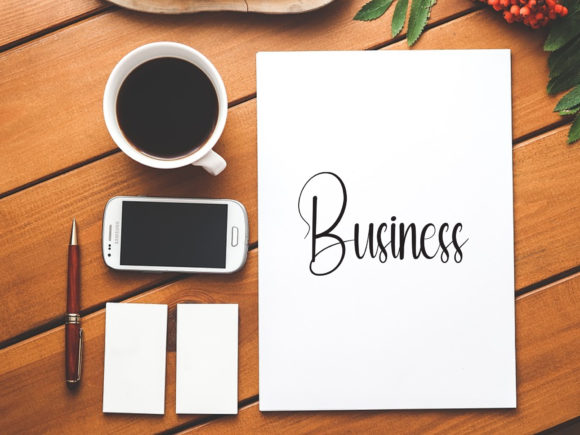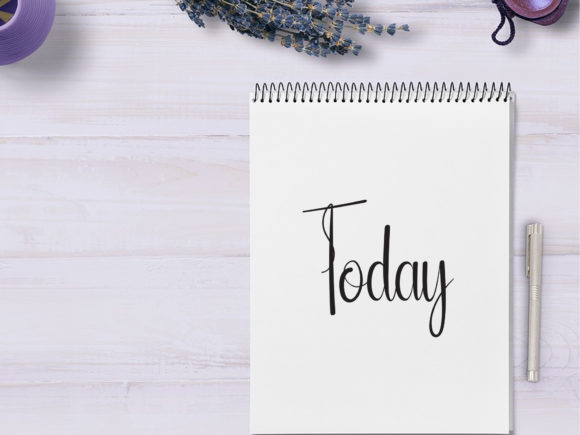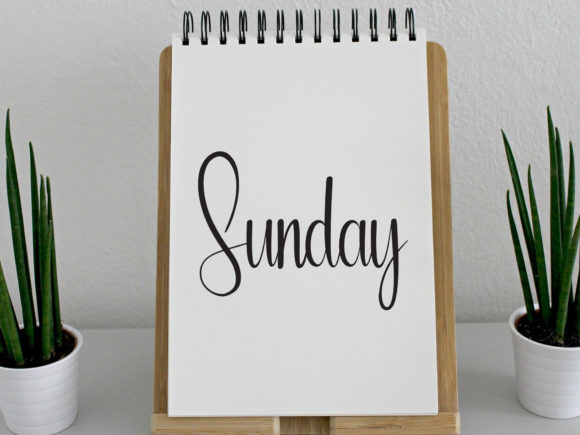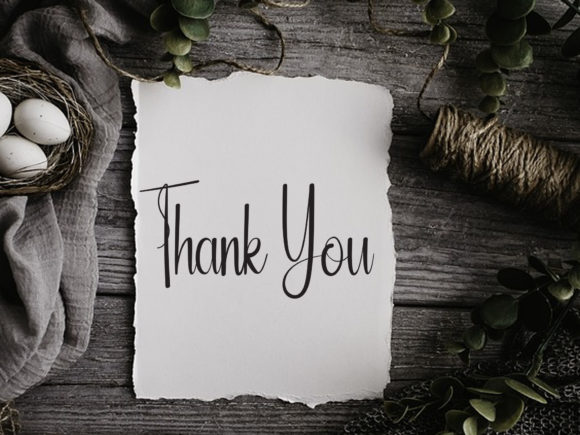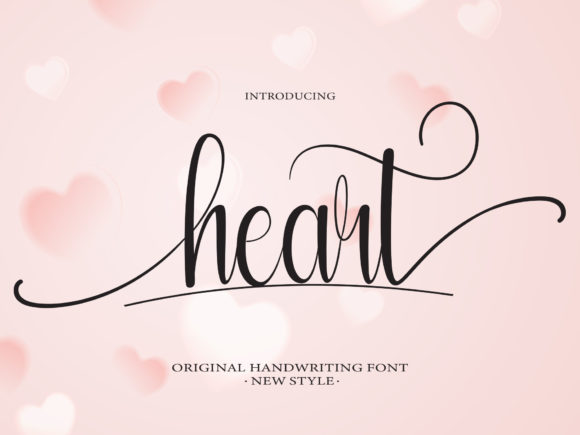
Heart Font: The Sweetest Handwritten Font for Your Creative Projects
Are you a designer, crafter, or DIY enthusiast looking for a font that can add a touch of warmth and personality to your projects? Look no further than Heart Font, a sweet handwritten font that is made with great care to exceed your expectations. In this article, we’ll explore the features and benefits of Heart Font, and show you can use it to create beautiful and engaging designs.
What is Heart Font?
Heart Font is a handwritten font that is designed to be both elegant and approachable. It features a unique and charming style that is perfect for a wide range of creative projects, from handmade crafts to digital designs. The font is carefully crafted to ensure that each letter is beautifully formed and proportioned, making it easy to read and visually appealing.
Key Features of Heart Font
- Handwritten style: Heart Font has a lovely handwritten style that adds a personal touch to your designs.
- Unique character set: The font features a unique character set that includes uppercase and lowercase letters, numbers, and punctuation marks.
- Easy to read: The font is carefully designed to be easy to read, making it perfect for body text and headings.
- Versatile: Heart Font can be used for a wide range of creative projects, from crafts to digital designs.
Benefits of Using Heart Font
So why should you choose Heart Font for your creative projects? Here are just a few benefits of using this lovely font:
- Adds a personal touch: Heart Font’s handwritten style adds a personal touch to your designs, making them more relatable and engaging.
- High-quality design: Heart Font is carefully designed to ensure that it is of high quality and visually appealing.
- Flexible: The font can be used for a wide range of creative projects, from handmade crafts to digital designs.
Creative Projects with Heart Font
Heart Font is perfect for a wide range of creative projects, including:
- Handmade crafts: Use Heart Font to add a personal touch to your handmade crafts, such as cards, gift tags, and scrapbook pages.
- Digital designs: Use Heart Font to create beautiful digital designs, such as social media graphics, blog posts, and email newsletters.
- Stationery: Use Heart Font to create lovely stationery, such as journals, planners, and notecards.
- Signs and displays: Use Heart Font to create eye-catching signs and displays, such as posters, banners, and window clings.
In conclusion, Heart Font is a sweet handwritten font that is perfect for designers, crafters, and DIY enthusiasts. With its unique and charming style, easy-to-read design, and versatile nature, Heart Font is sure to become a favorite in your creative toolkit. So why not give it a try and see the difference it can make in your creative projects?